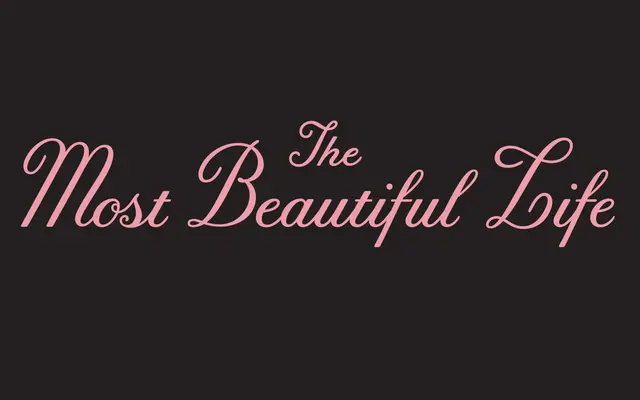
Tilda
Jessica Hische · Jessica Hische
A hand-lettered script designed for the Wes Anderson film Moonrise Kingdom, available in two size-specific cuts to preserve its delicate, intentionally naïve qualities.
Created for Moonrise Kingdom's title lettering, this script draws on the quaint aesthetic of Wes Anderson and the 1969 French film La Femme Infidèle. It carries a formally dressed quality while retaining a deliberate rawness. Unusually for a script typeface, it offers two size-specific styles, one for display use and one for smaller settings, maintaining optical consistency across contexts.
A hand-lettered script with intentional naïveté, inspired by film title lettering; sits in the casual script category owing to its informal, slightly raw character despite its formal presentation.